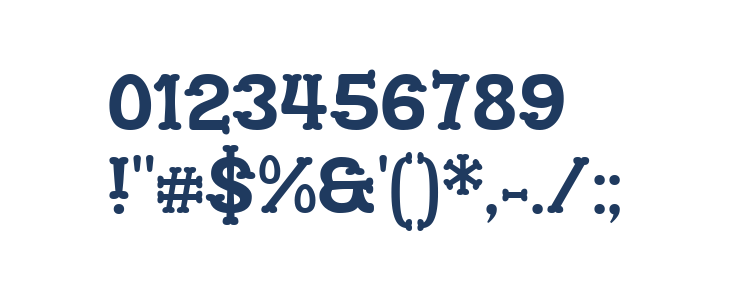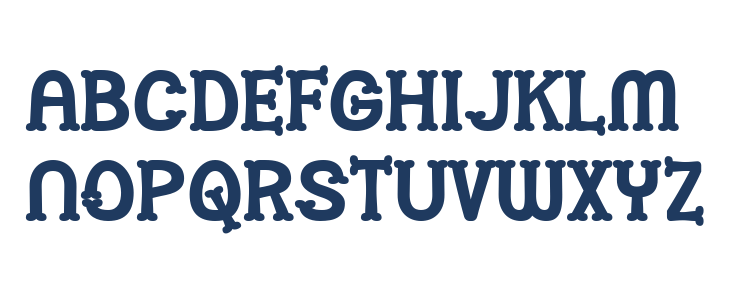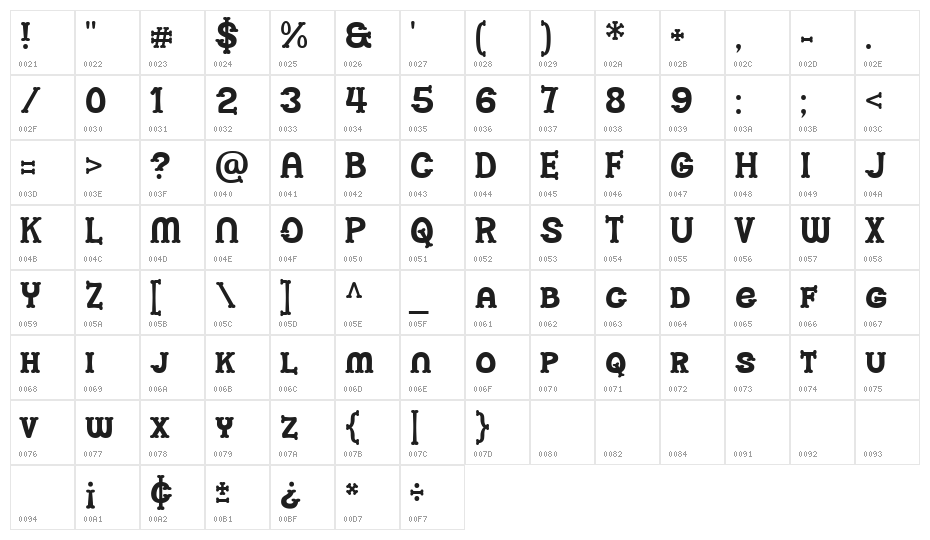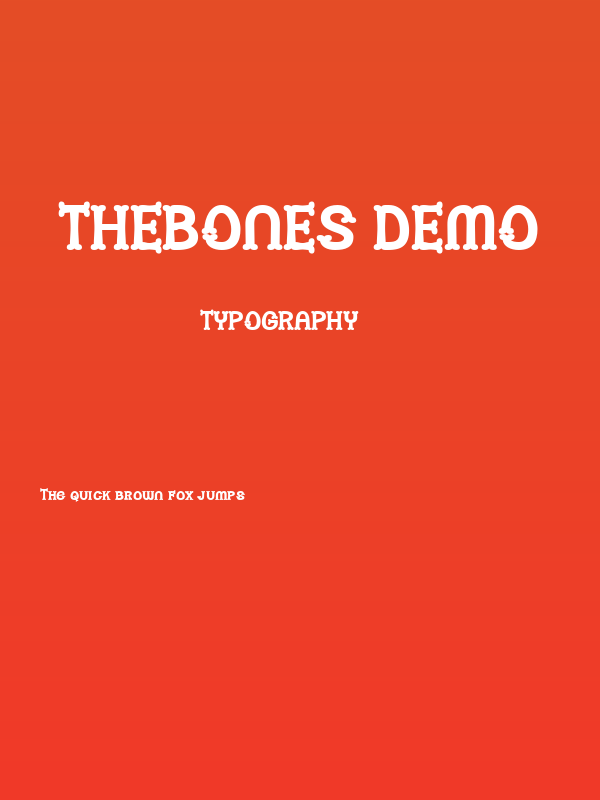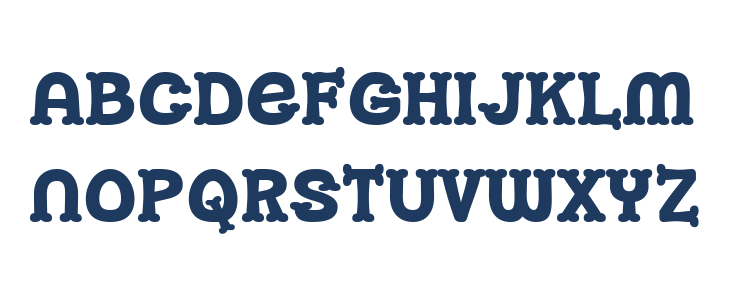
Thebones Demo Font
Thebones Demo Description
A playful, decorative display font with bold, rounded letterforms and bone-like terminals, giving it a quirky and spooky appearance. The characters are evenly spaced, with consistent stroke thickness and a whimsical, cartoonish style.
| Overall Style | Decorative, Playful, Spooky |
| Use Case | Headlines, Logos, Posters, Themed Graphics |
| Proposed Projects | Halloween posters, children's party invitations, themed event branding, playful logos, comic titles. |